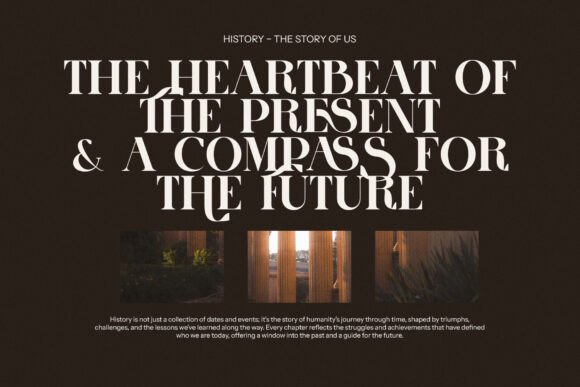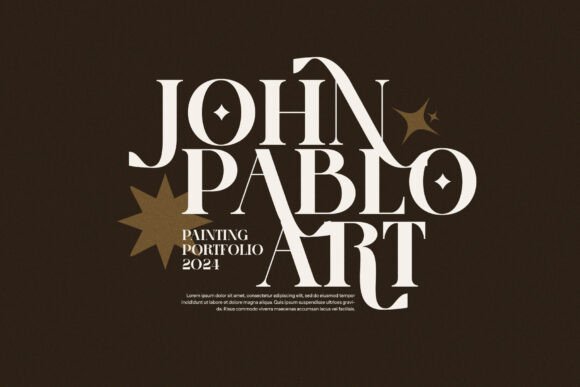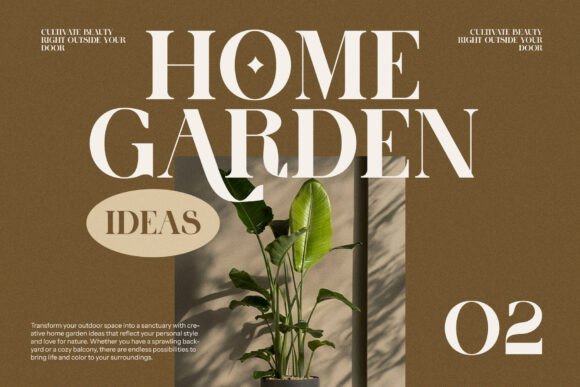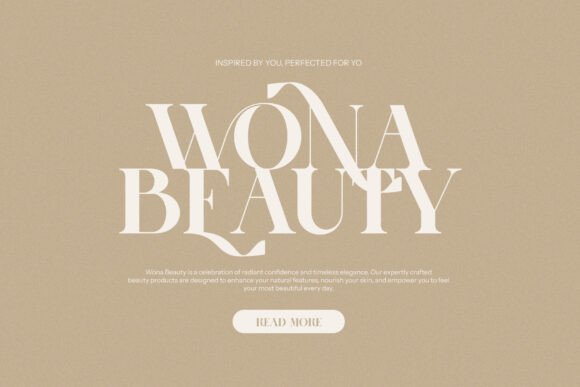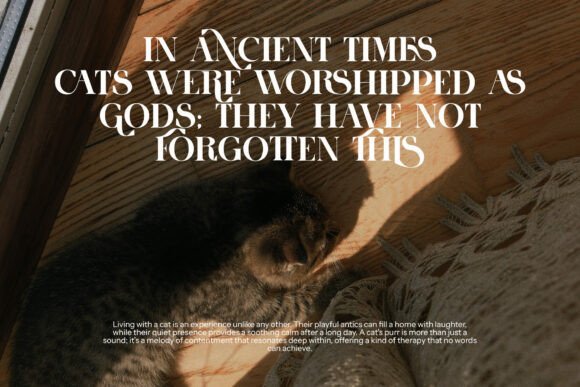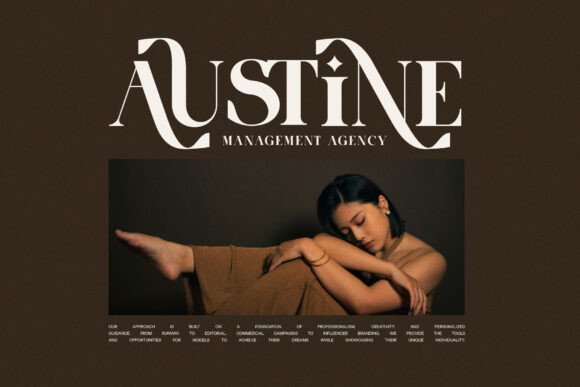
Introduction to Rimes Font
Rimes is a sophisticated and contemporary serif typeface that seamlessly blends timeless elegance with modern flair.
Designed with attention to detail, this font features beautifully crafted letterforms, offering an exceptional range of ligatures and alternates that elevate any design project Its refined structure makes Rimes a versatile choice for a wide range of creative applications, from high-end branding and logos to luxurious magazine layouts and premium product packaging.
Key Features of Rimes Font
Why Choose Rimes Font?
Rimes Font offers exceptional quality and versatility, making it a valuable addition to your design toolkit. Whether you’re creating for personal projects or commercial use, Rimes Font delivers professional results.